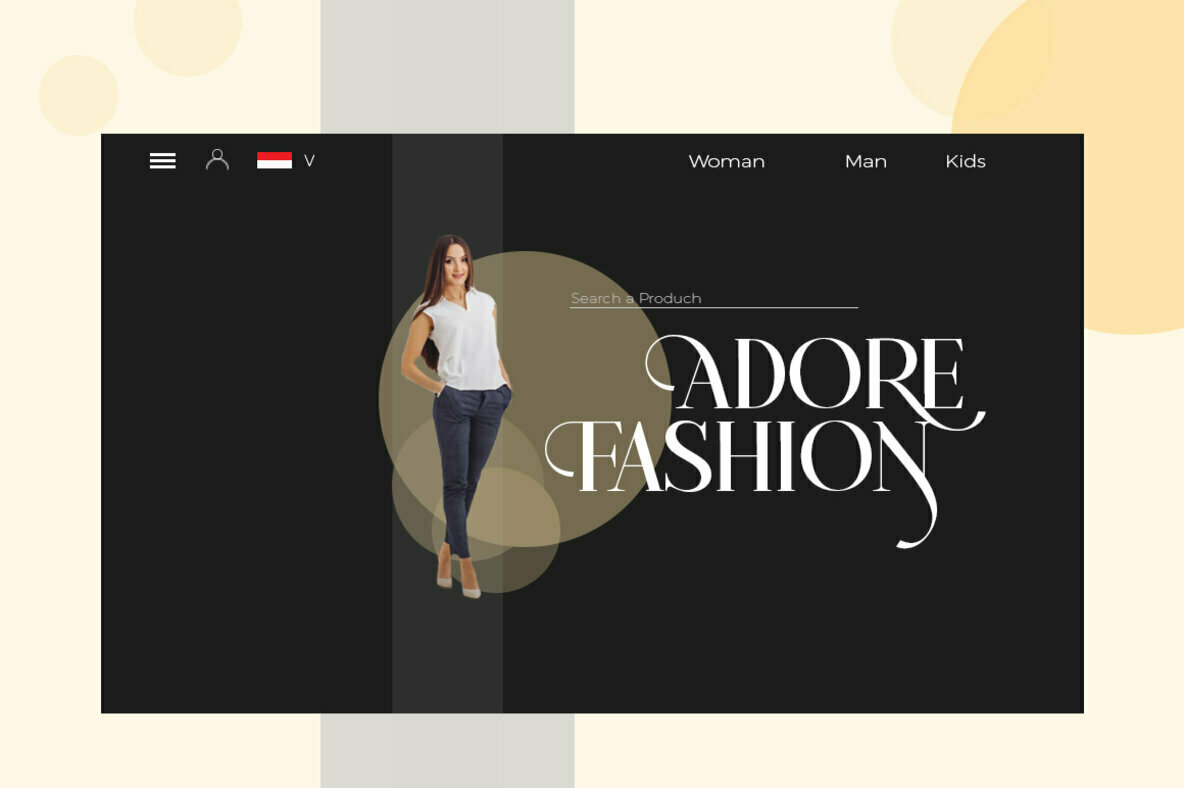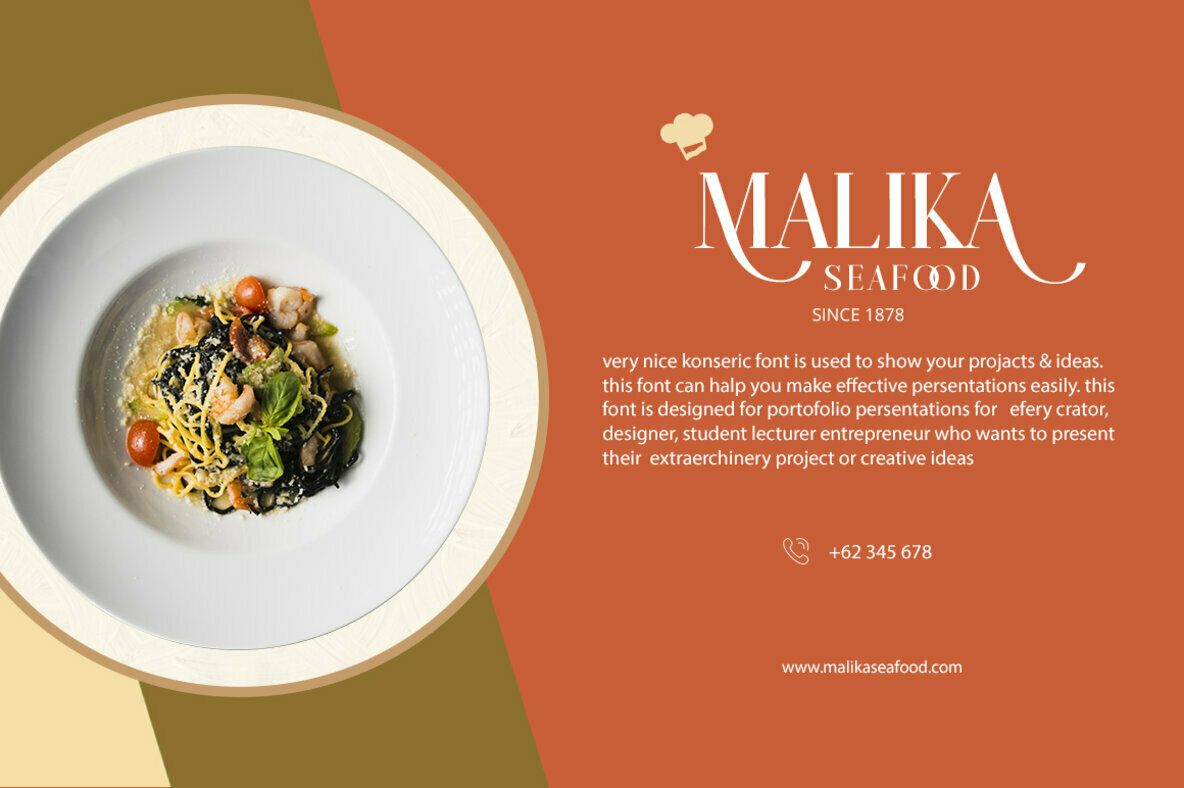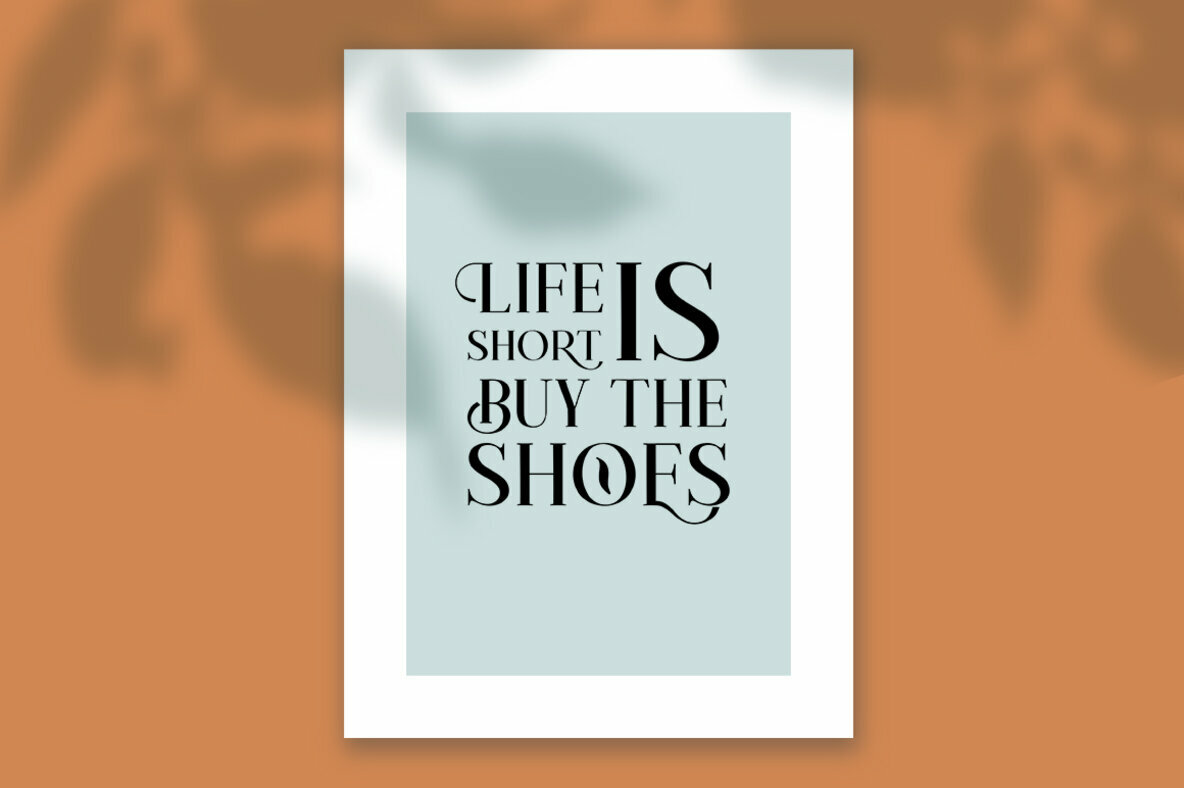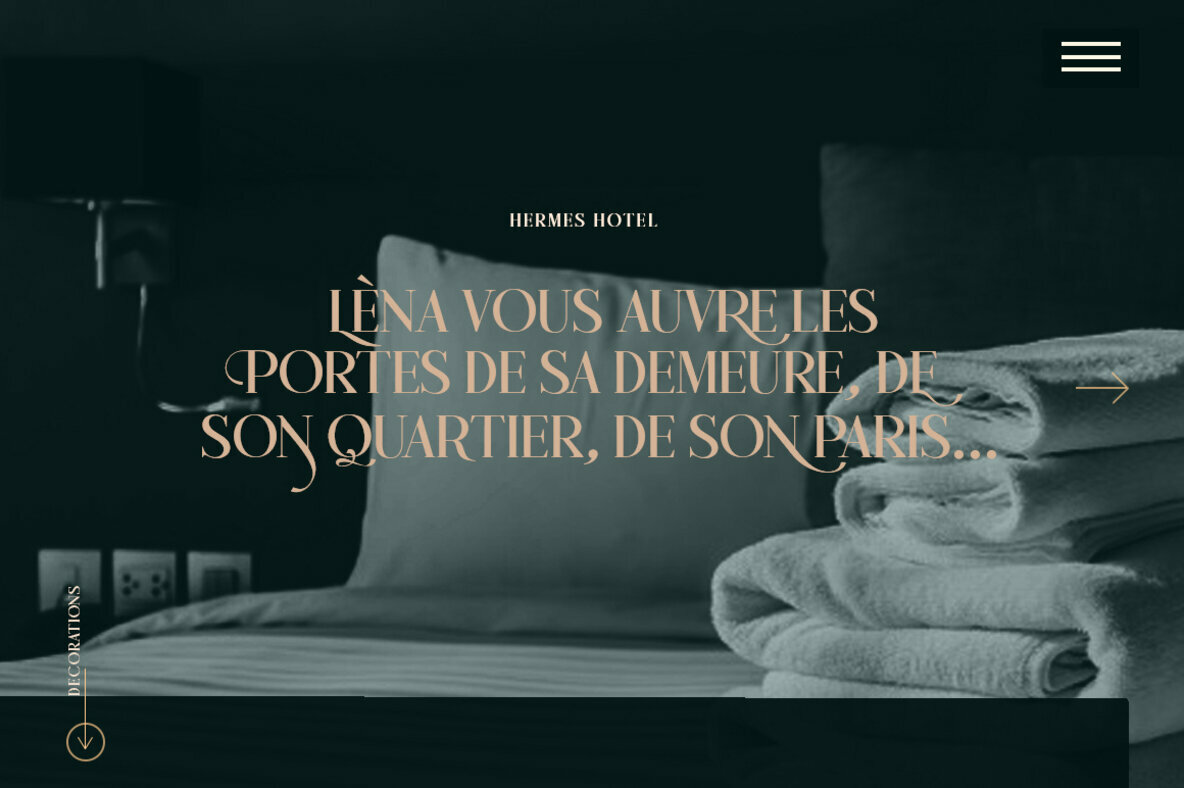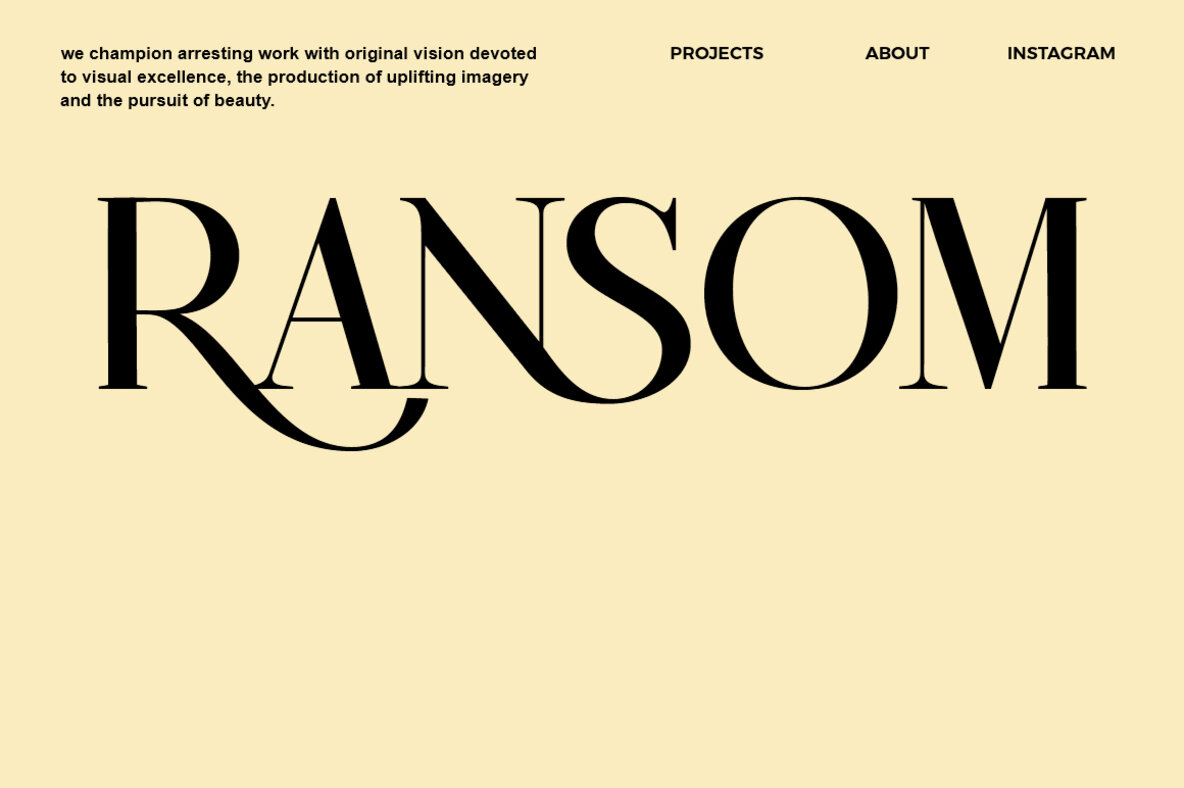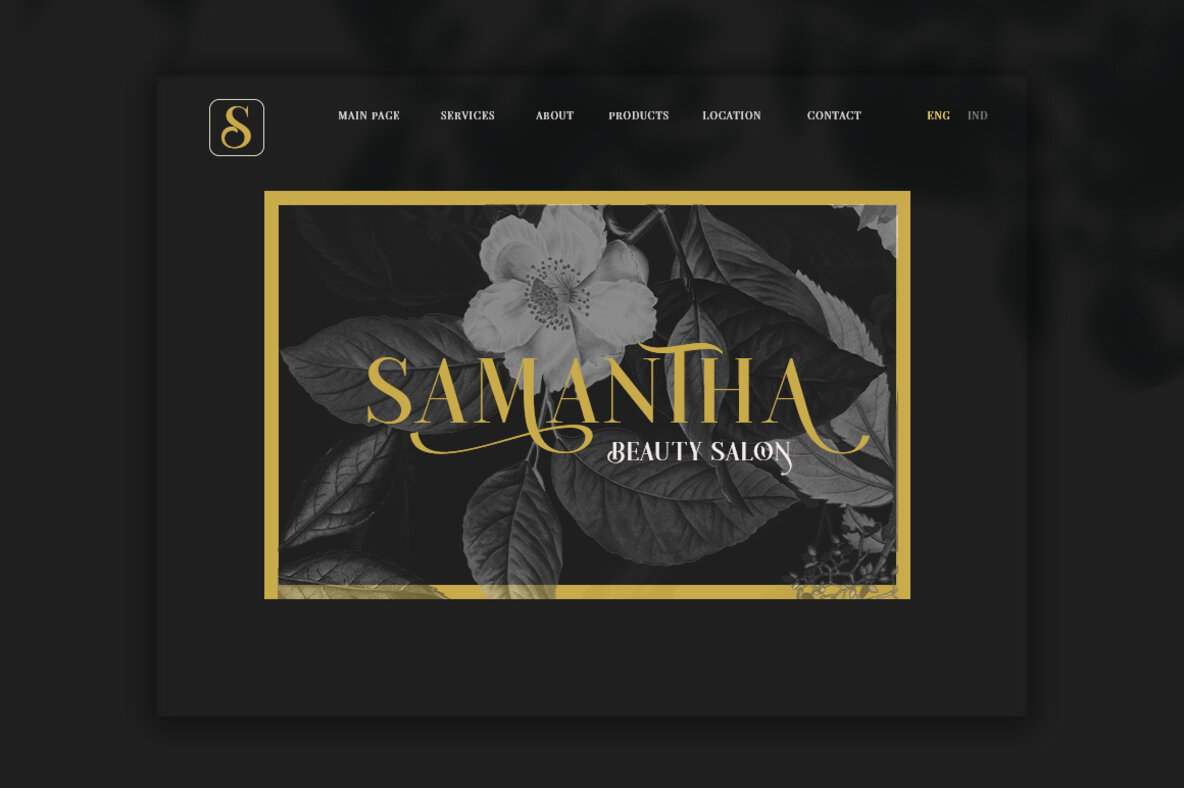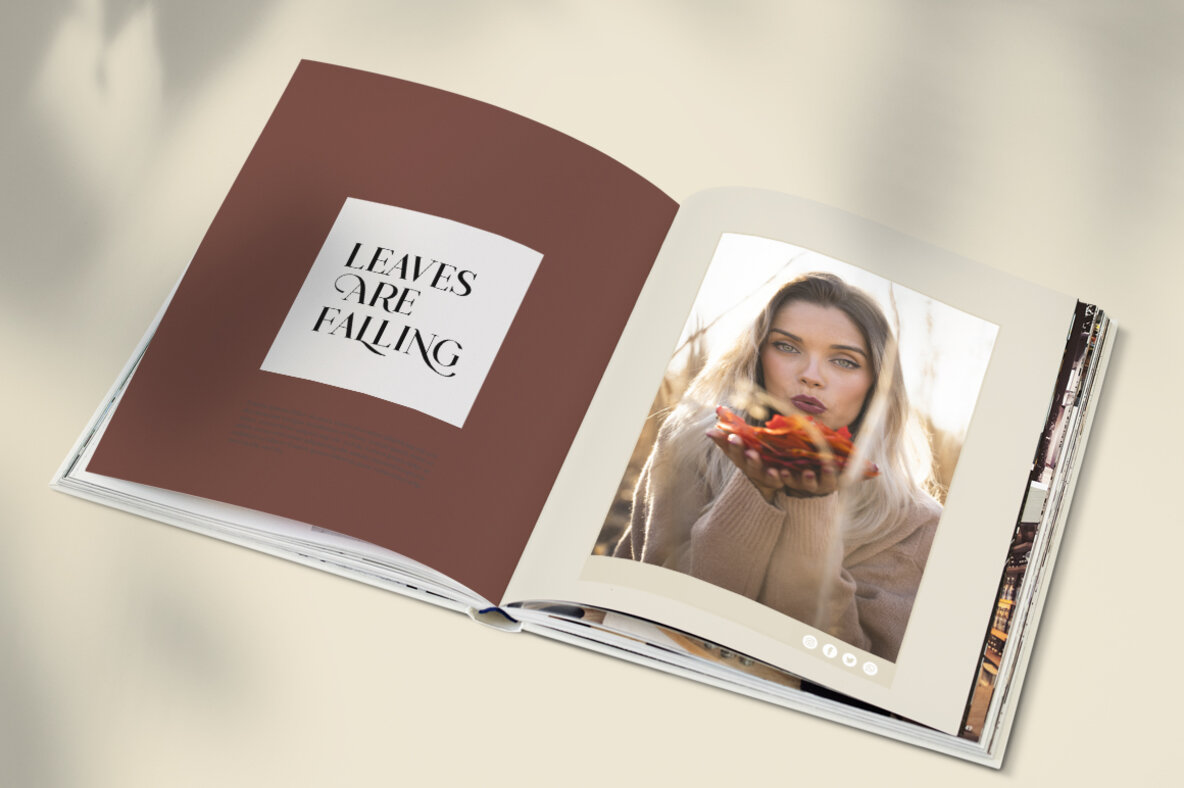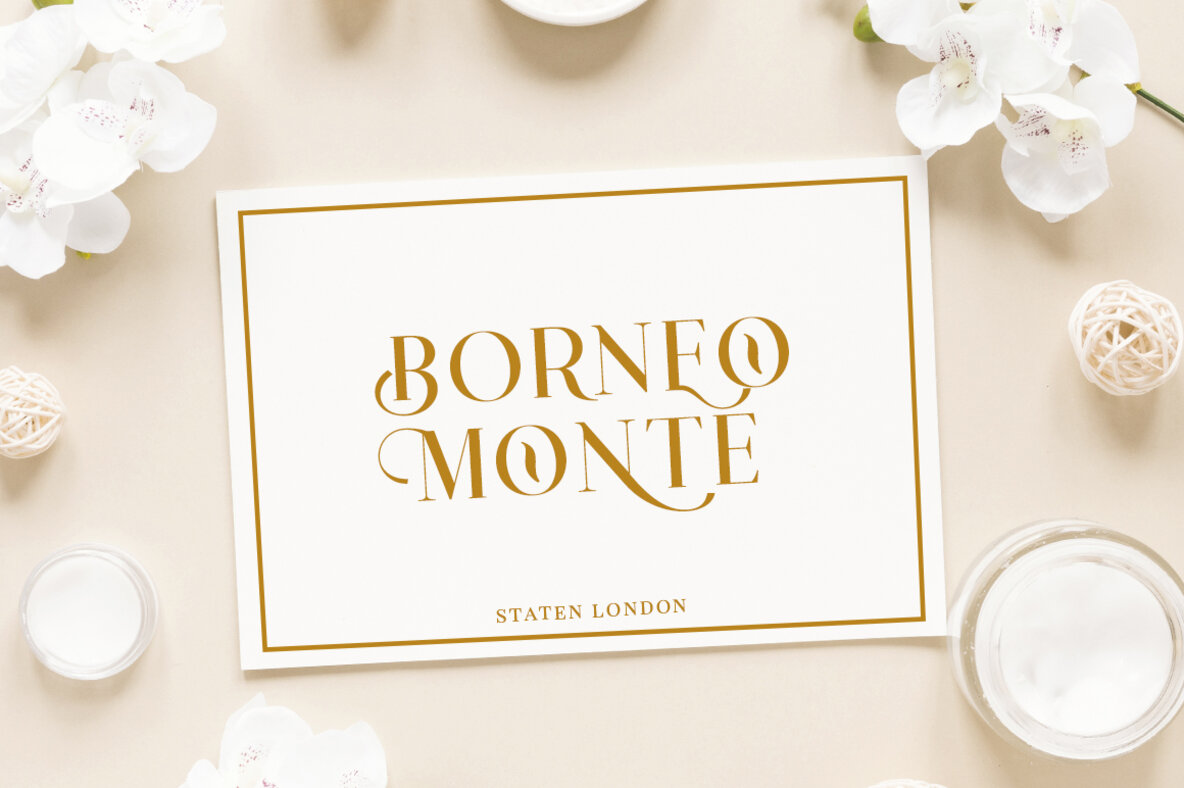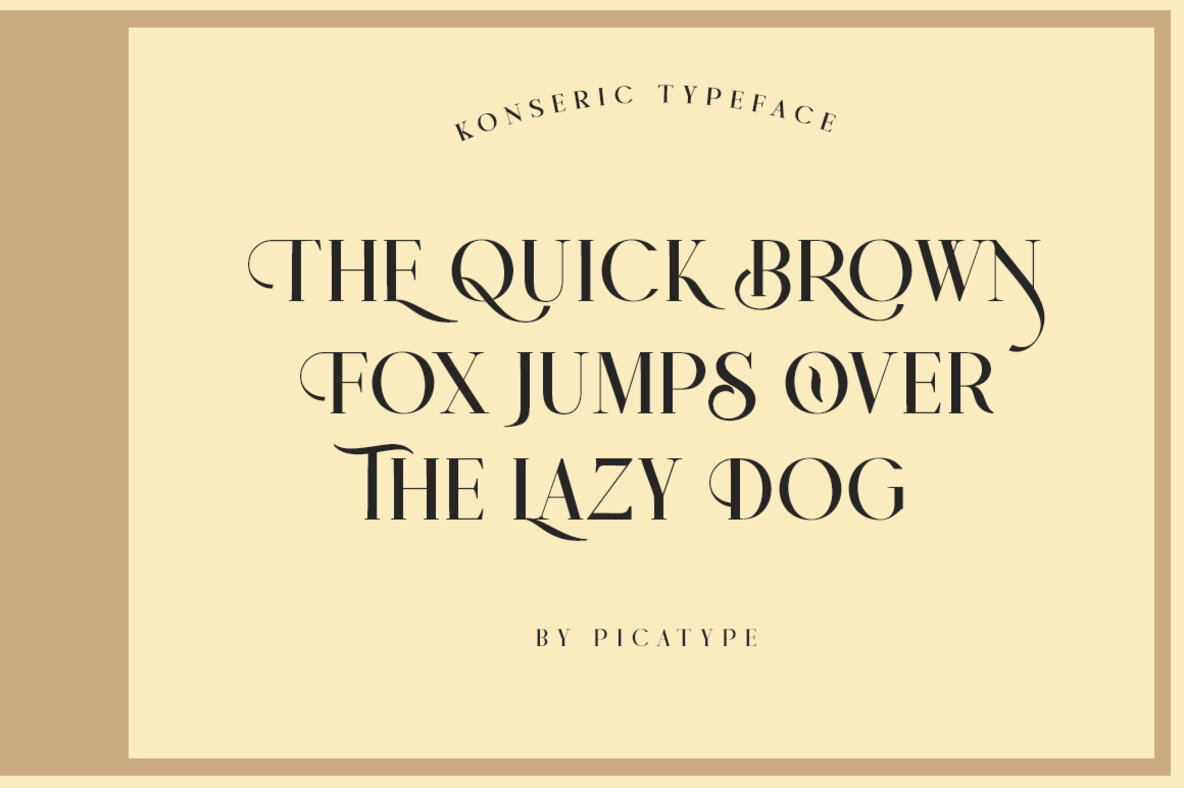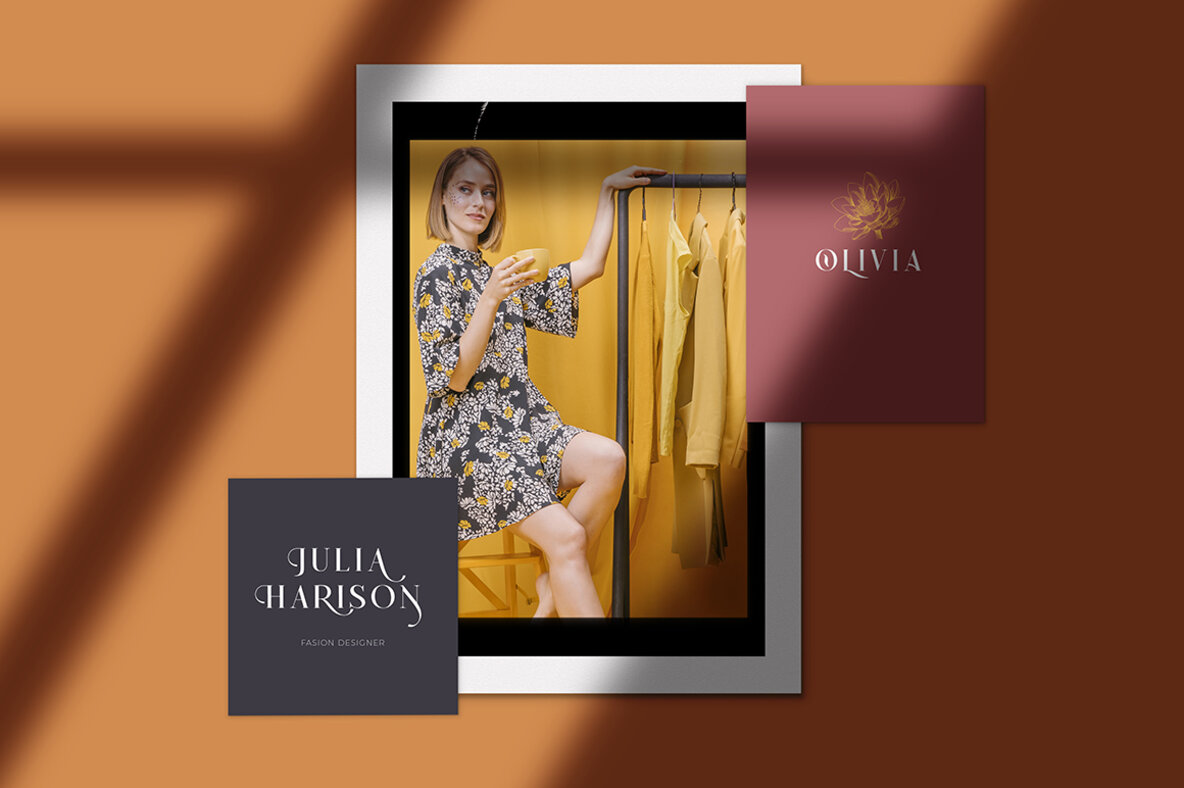
Konseric Font
Konseric
The Konseric font by Akmal Yusar brings together the timeless elegance of serif typography with a modern twist. Its unique curves and cut-ins lend a memorable distinctive flair, capturing both vintage aesthetics and contemporary minimalist design. Features: Konseric finds versatility in diverse applications—from wordmark logos and mastheads to pull quotes and monograms. The font seamlessly adapitates to both feminine and masculine qualities, making it equally suitable for elegant packaging, invitation cards, and various creative projects.Konseric: Elegant Classic Serif for Modern Designs